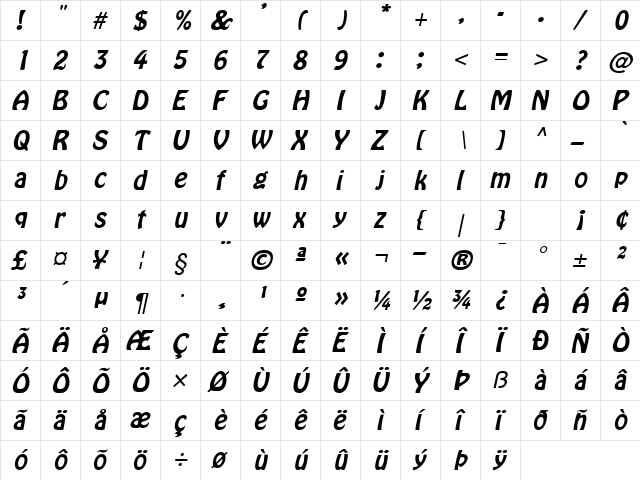
Tramp Italic
Design Context for Tramp Typeface
Tramp offers clean, dependable letterforms without strong stylistic allegiance, making it a practical choice for designers who need flexibility. Its italic angle brings a sense of urgency and motion to the letterforms.
Pro Tip: Use Tramp for emphasis, pull quotes, and subheadings where its slanted energy can add rhythm to the layout.